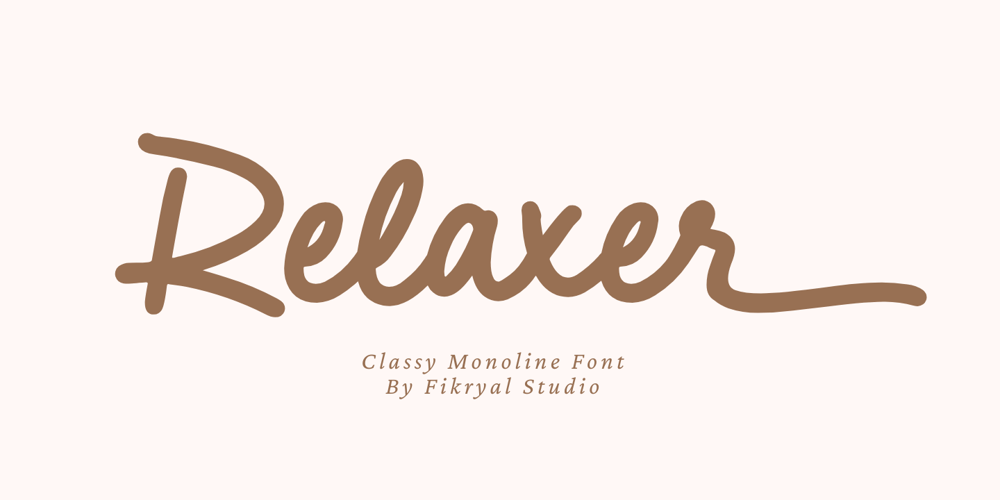
Relaxer Font Family was designed by Muhammad Fikry and published by Fikryal. Relaxer contains 1 styles and family package options. Introducing Relaxer – a sophisticated monoline font exuding elegance and ease. With its graceful script style, Relaxer brings a touch of class to any project. Each lowercase letter features two stylistic alternates, adding versatility and charm to your designs. Whether used for invitations, branding, or editorial purposes, Relaxer promises to infuse your creations with refined simplicity and timeless appeal. Discover the perfect balance of sophistication and relaxation with Relaxer font.If you have any questions please don’t hesitate to contact me.follow my Instagram: fkryallThank you 🙂